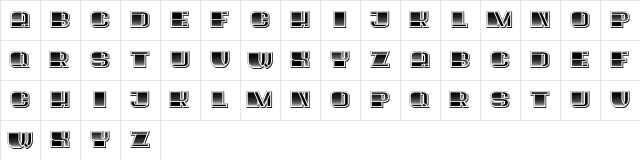
Kino Regular Font Preview
Kino Regular
Design Context for Kino Typeface
Kino is a composed and adaptable typeface that performs quietly and consistently across a wide range of design contexts.